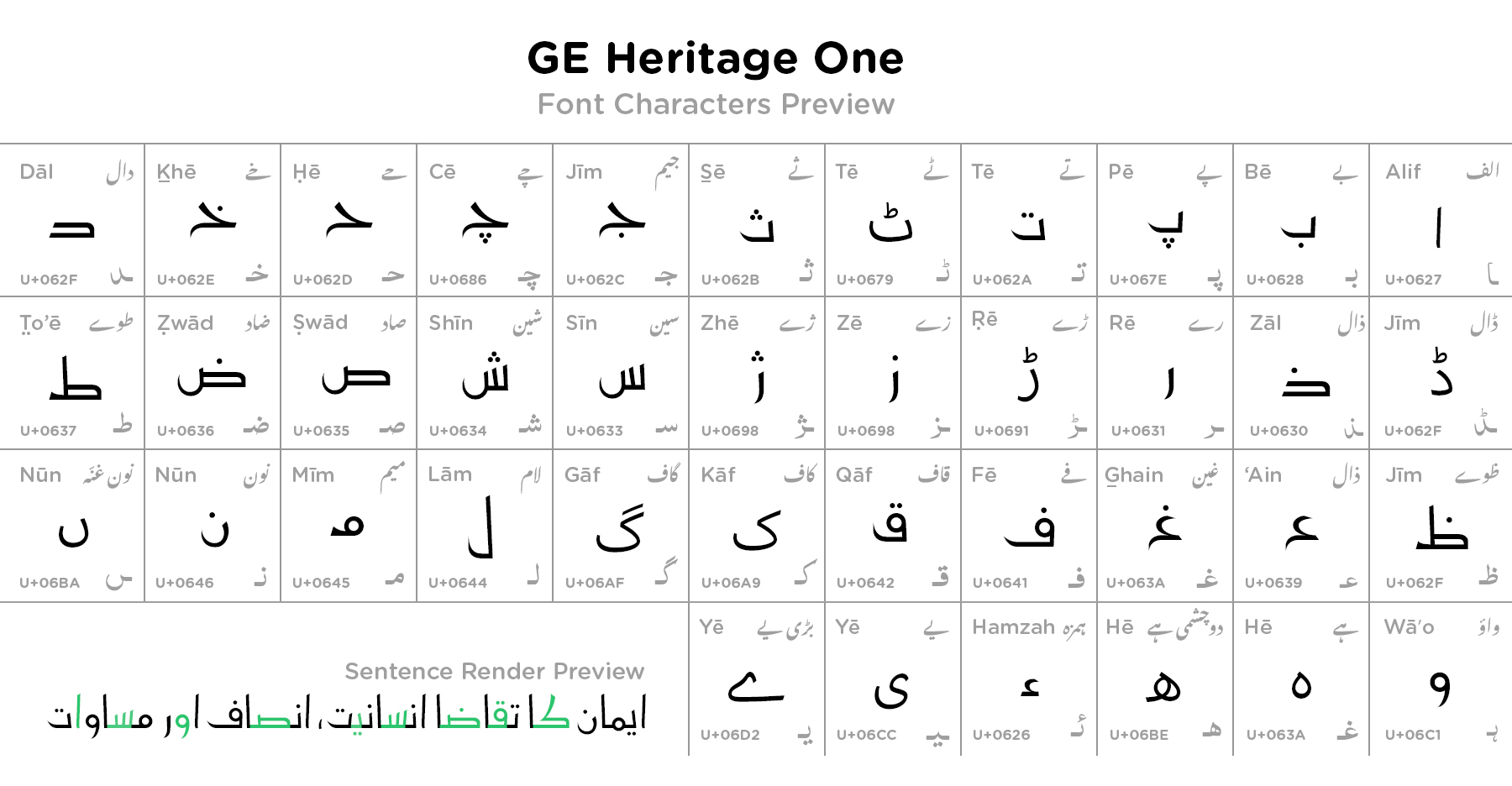
GE Heritage One
GE Heritage One is a counterpart of GE Heritage Two, only lighter. It is a sans-serif modern font that was designed and licensed by the Boutros International type foundry that excels in Arabic calligraphy and typography, in May 2021. It is a geometric font with a modern and clean appearance. Compatible with various modern Unicode standards, it has a character set of 282 comprising letters, punctuations, and symbols with a generous glyph count of 283. This font only comes in regular font weight which is medium in thickness. Therefore, perfect for long textual projects, like newspapers, signs, advertising, tickers, mobile app interfaces, and more.
Moreover, GE Heritage One has a geometric design, with clear and sharp lines. This gives it a modern and sophisticated touch. It is a sans-serif font, which means that it does not have small strokes at the ends of the letters. This makes it easier to read at small sizes. The letterforms are simple and clean, with a medium thickness, giving the font a professional look. The font supports Latin, Arabic, and Greek languages along with partial support for Urdu, Persian, and more. It comes in 4 different weights including:
• GE Heritage One UltraLight
• GE Heritage One Light
• GE Heritage One Medium
• GE Heritage One Bold